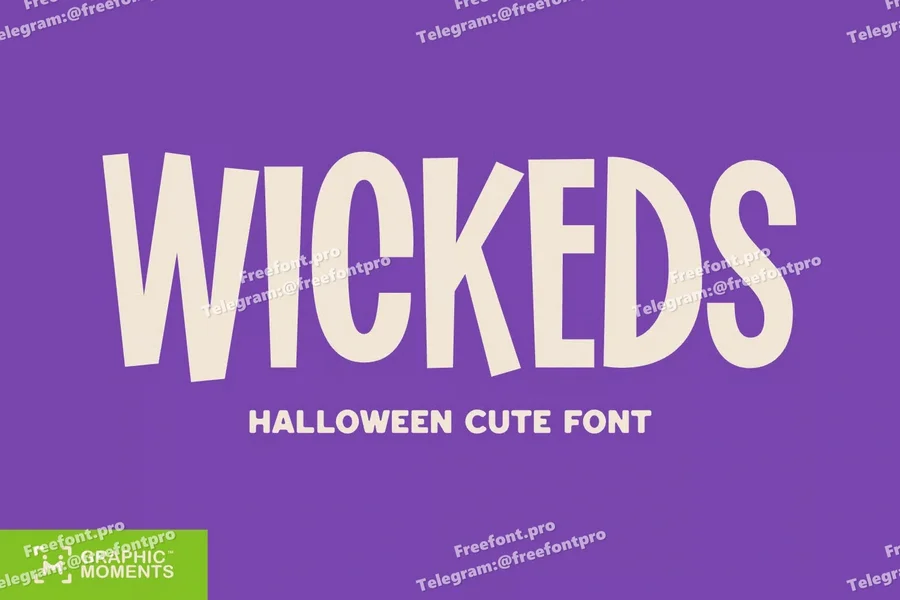
Halloween – Wickeds
Wickeds is a bold and twisted Halloween font that drips with creepy character and gothic mystery. Designed to haunt your horror creations, its sinister shapes and jagged details are perfect for scary movie posters, spooky invitations, thriller titles, and wicked witchy branding. This typeface blends evil elegance with deathly vibes—summoning the spirit of classic monster tales and haunted thrills.
Whether you’re crafting a horror film logo, a Halloween merchandise design, or a gothic poster for a witch’s curse, Wickeds casts a spell of fear and fascination. Embrace the darkness, unlock the mystery, and let Wickeds turn your next design into a chilling visual story.